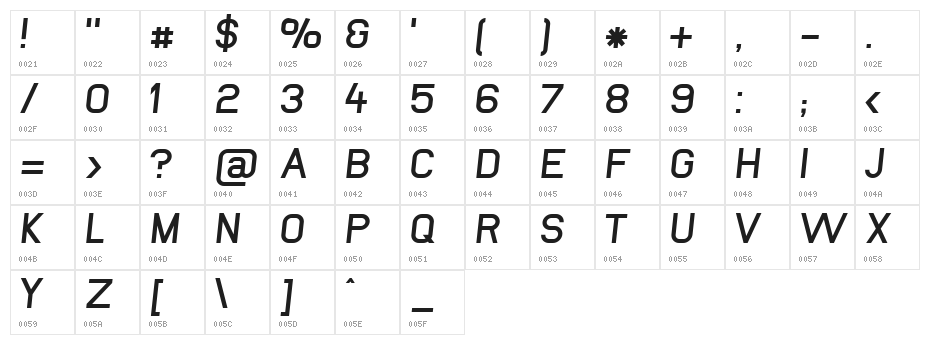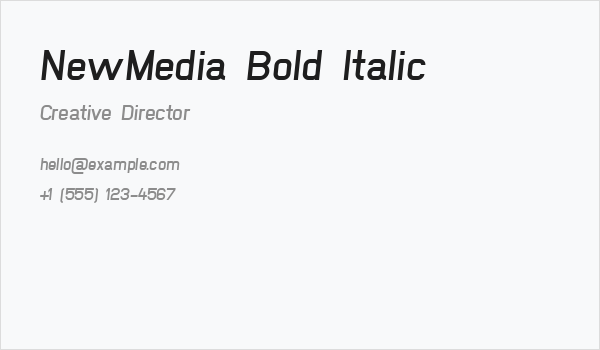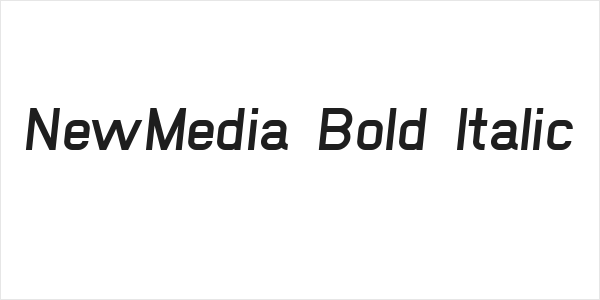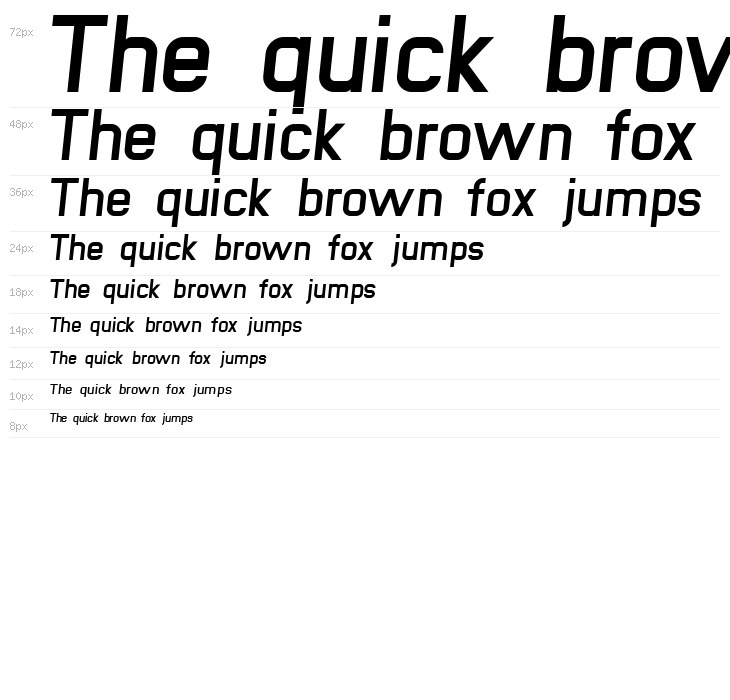
NewMedia Bold Italic Font
NewMedia Bold Italic Description
This font exhibits a bold and italicized style, characterized by its modern and sleek appearance. The letters are slightly slanted, giving a dynamic and forward-moving impression. The strokes are consistent and bold, providing a strong visual impact. The uppercase and lowercase letters maintain a uniform height, contributing to a cohesive look. The numerals are clear and well-defined, matching the overall style of the alphabet. Special characters are included, maintaining the same bold and italicized characteristics. This font is suitable for projects that require a modern and assertive typeface.
| Use Case | Headlines, Logos, Digital Media |
| Proposed Projects | Ideal for branding, advertising, headlines, and digital media projects. |